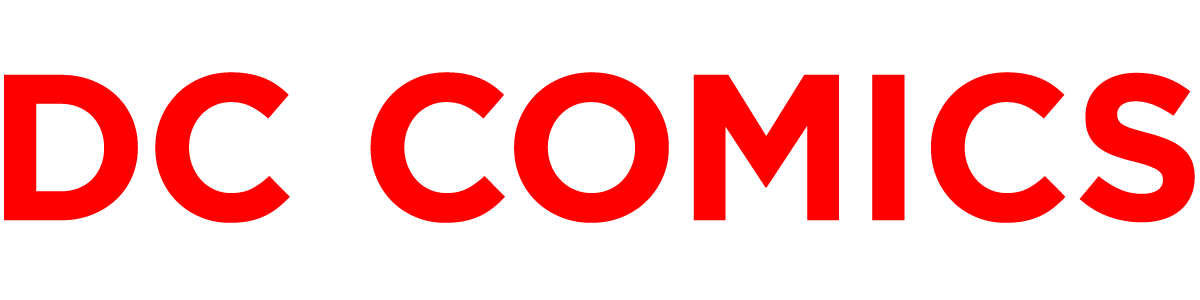
Dc Comics Lettering Font. Classic comic by patrick griffin. The font is a commercial one and you can view more details about the font here.
What Is The Dc Comics New Logo Font Name?
The Letters Dc Stood For Detective Comics, The Name Of Batman's Flagship Title.
And Likewise, A Font Shouldn’t Be Reduced To Too Small A Size.
Piekos Has Provided Lettering And Design For Virtually Every Major Publisher: